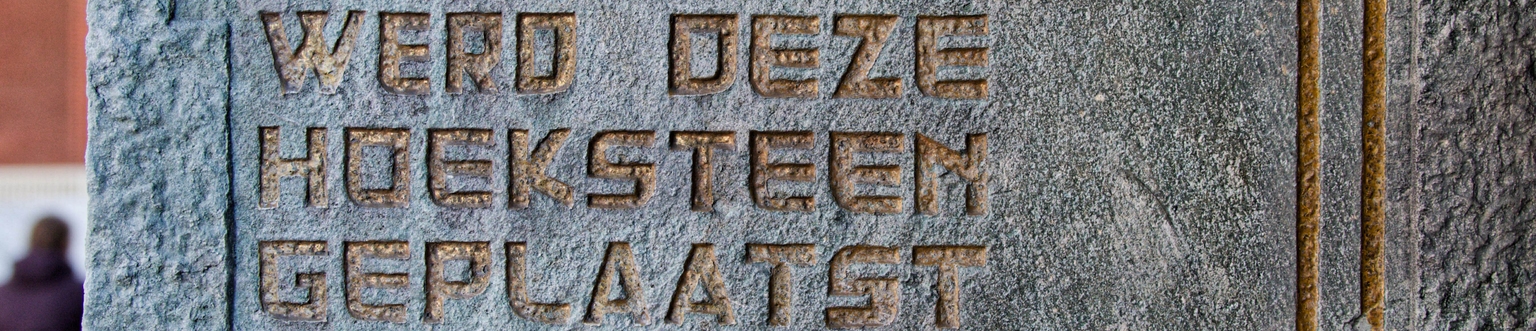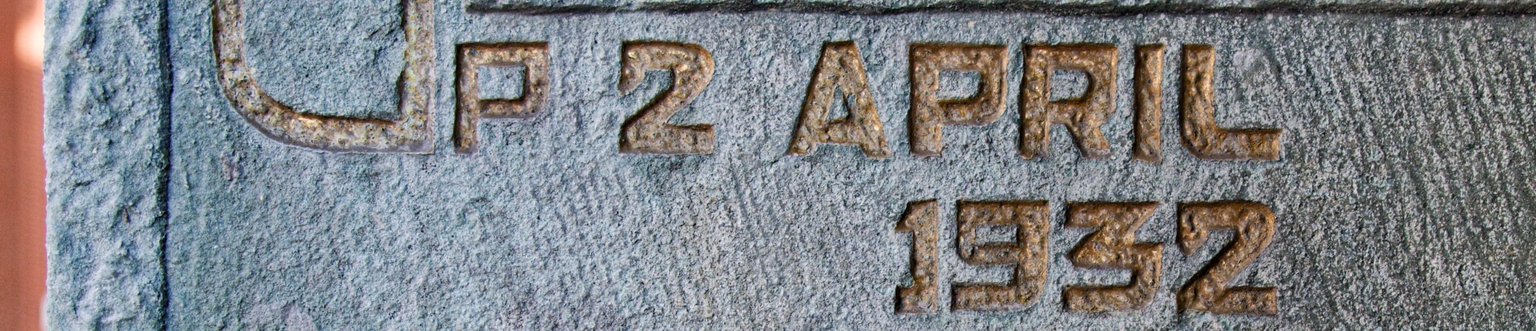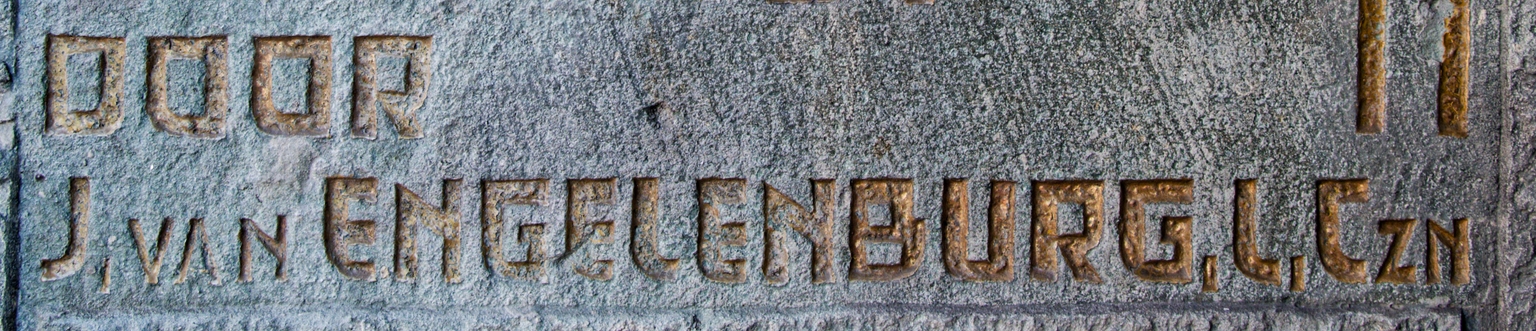
Marien
Marien is a modular, neo-constructivist display typeface designed by Ramiro Espinoza and inspired by a piece of 1930s lettering found on a façade stone at Mariënburg 92 in Nijmegen, the Netherlands. The original inscription reflects the interwar emphasis on clarity, structure, and reduction, combining an architectural presence with an experimental approach to form. Its concise geometry and rhythmic construction place it within a broader European modernist tradition shaped by functionalism and early constructivist ideas.
Espinoza analyzed the proportional system and modular logic of the original letters and translated these principles into a contemporary digital typeface. Rather than reproducing the forms verbatim, he refined the geometry, resolved inconsistencies, and expanded the character set to support current typographic needs. The resulting design preserves the disciplined, architectural quality of its source while offering improved consistency and flexibility.
With its clear structure and modernist character, Marien is well suited for posters, editorial design, branding, signage, exhibitions, websites, electronic appliances, toys, and cultural projects that benefit from a strong, constructed typographic voice rooted in early twentieth-century architectural lettering.